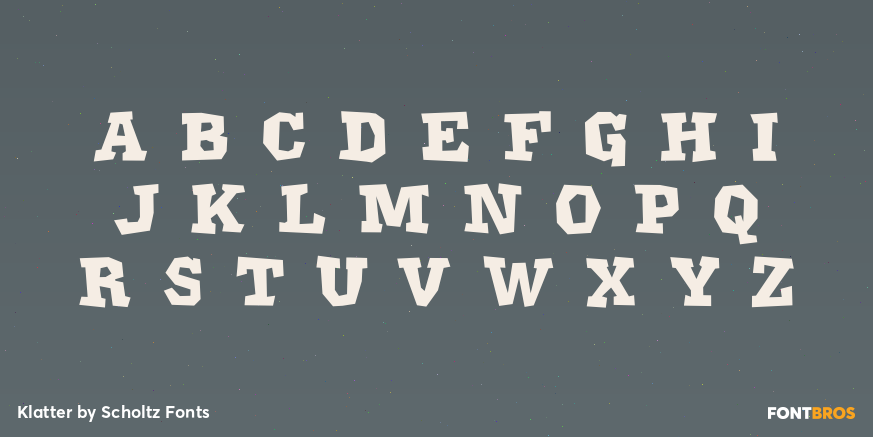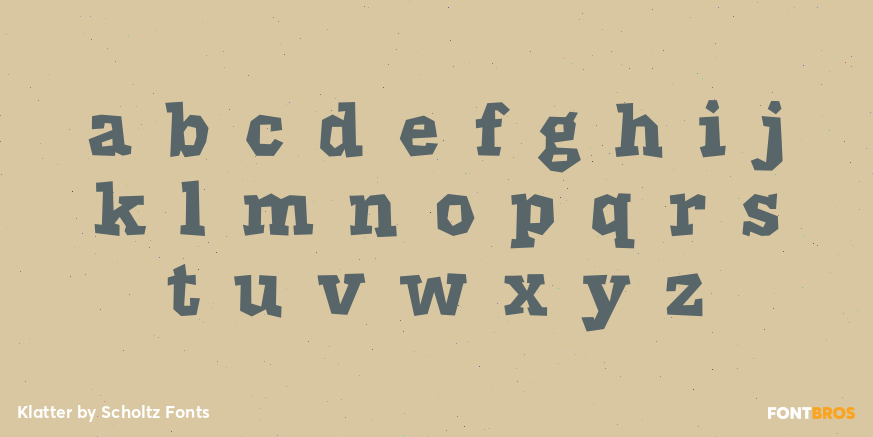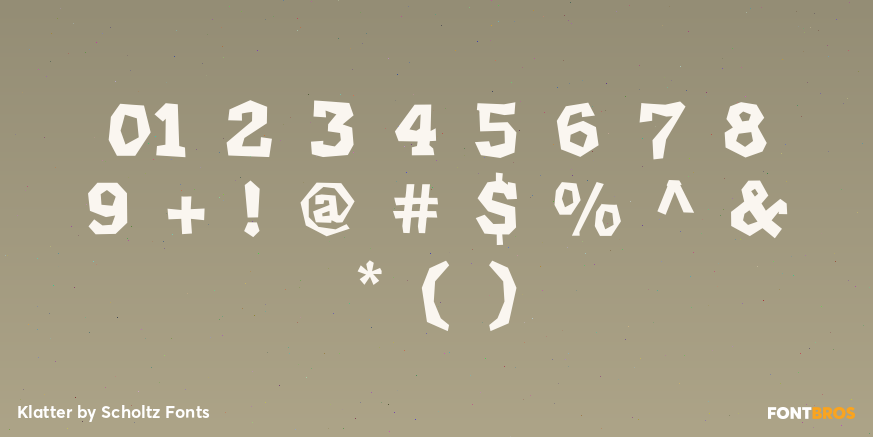
Klatter
Font Family by Scholtz Fonts
Klatter is a font that is ?in your face?. It can't be ignored, and draws attention to itself no matter how noisy the environment.
Both styles have a full character set with upper and lower case, numerals and mathematical symbols, as well as a full set of accented and special characters. The font has been carefully letter-spaced and kerned and the vertical spacing has been appropriately set.